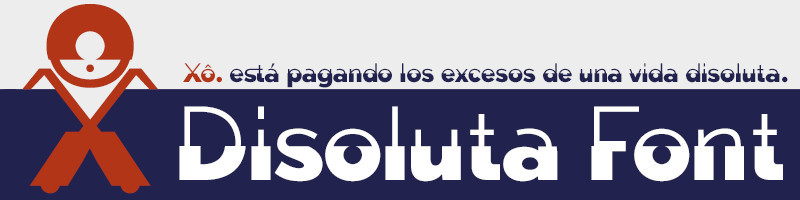
Disoluta Font
Disoluta is a typographical experiment, fusion of two sans fonts with different weights, for which I used my previous Typefaces: Tabarra Black & Light.